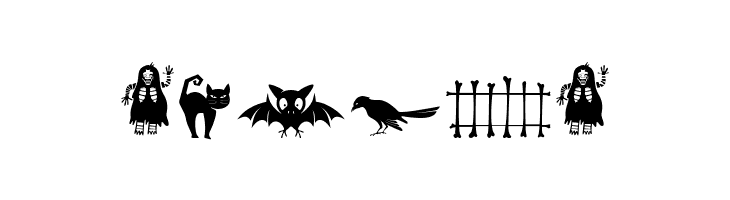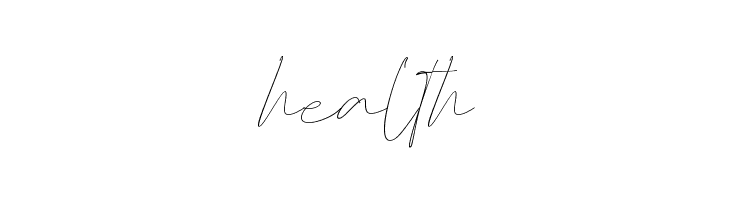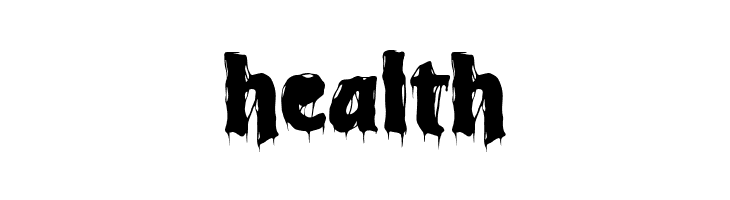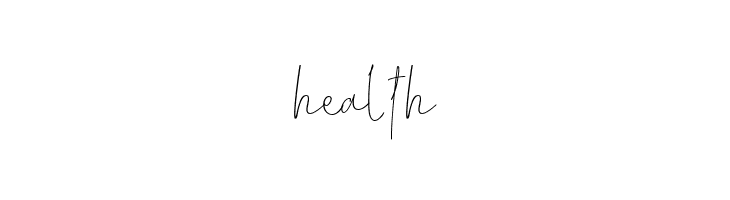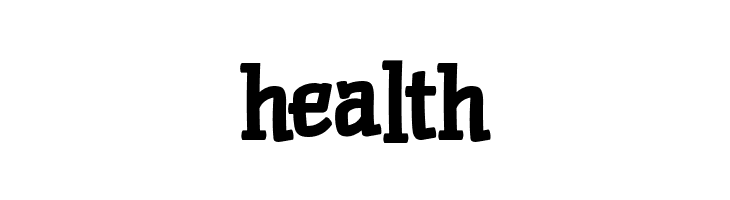
Halloween-themed decorative dingbat font with bold, spooky icons.
A delicate, cursive handwritten font with a flowing, elegant style.
A bold, playful font with wide, rounded characters and a whimsical style.
A bold, hand-drawn font with a rugged, distressed appearance.
A bold, geometric font with an industrial and modern aesthetic.
A bold, dripping font with a dramatic and eerie style.
A thin, handwritten font with a casual and elegant style.
A bold, playful slab serif font with rounded characters.
A bold, 3D font with strong shadow effects and a playful, cartoonish style.
A bold, playful font with rounded, bubble-like characters.
A bold, decorative font with nature-inspired embellishments.
A bold, decorative font with thick strokes and a modern flair.
A bold, blackletter-inspired font with sharp, angular lines and dramatic serifs.